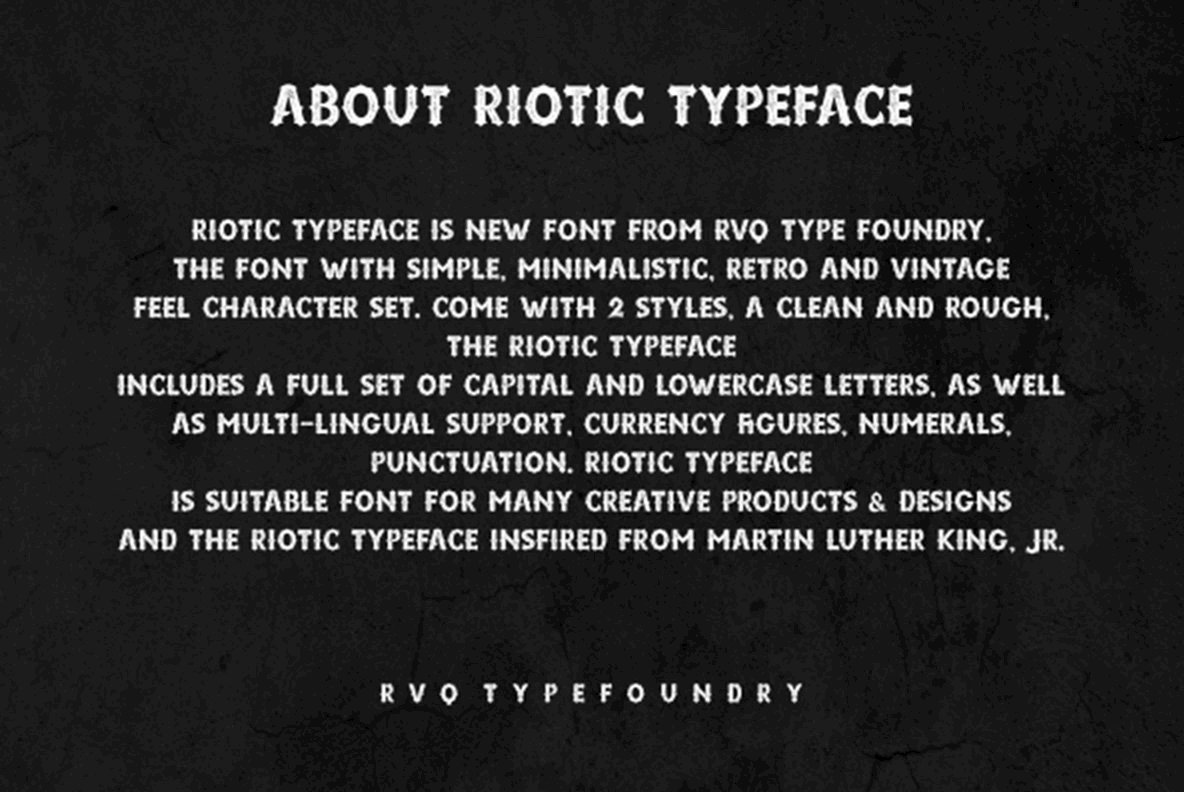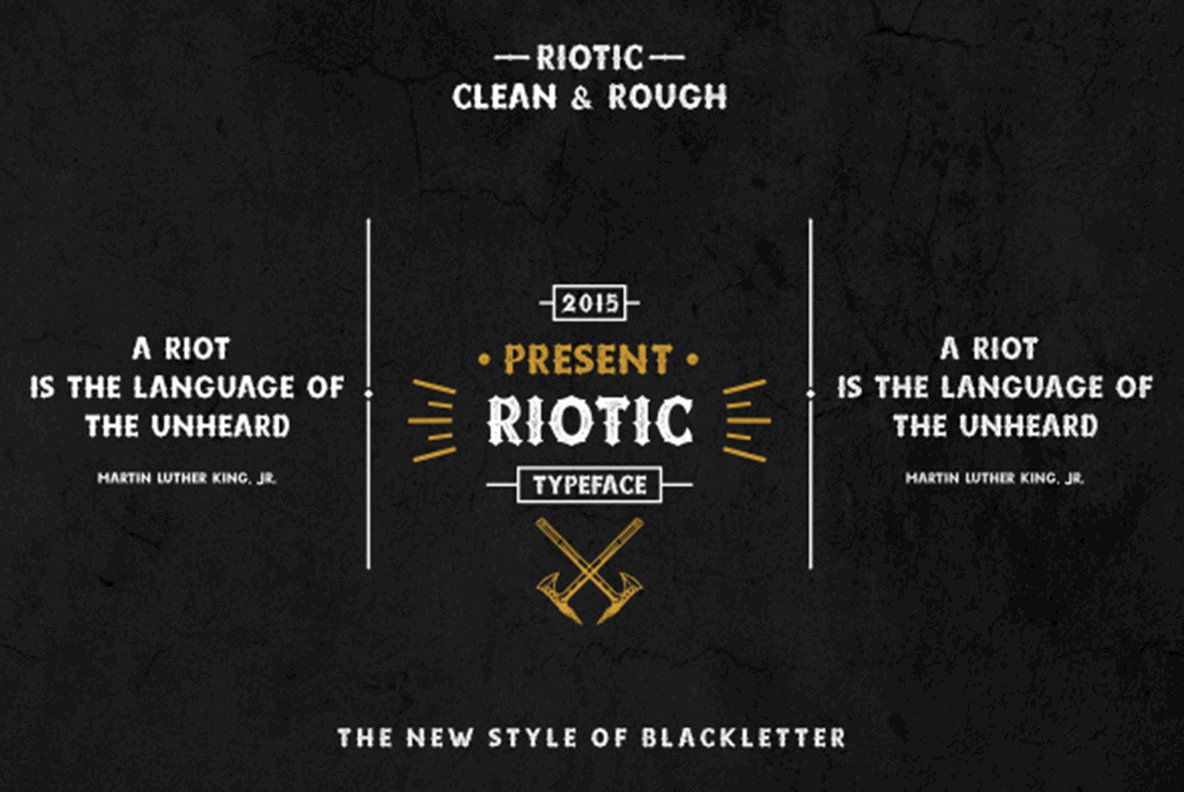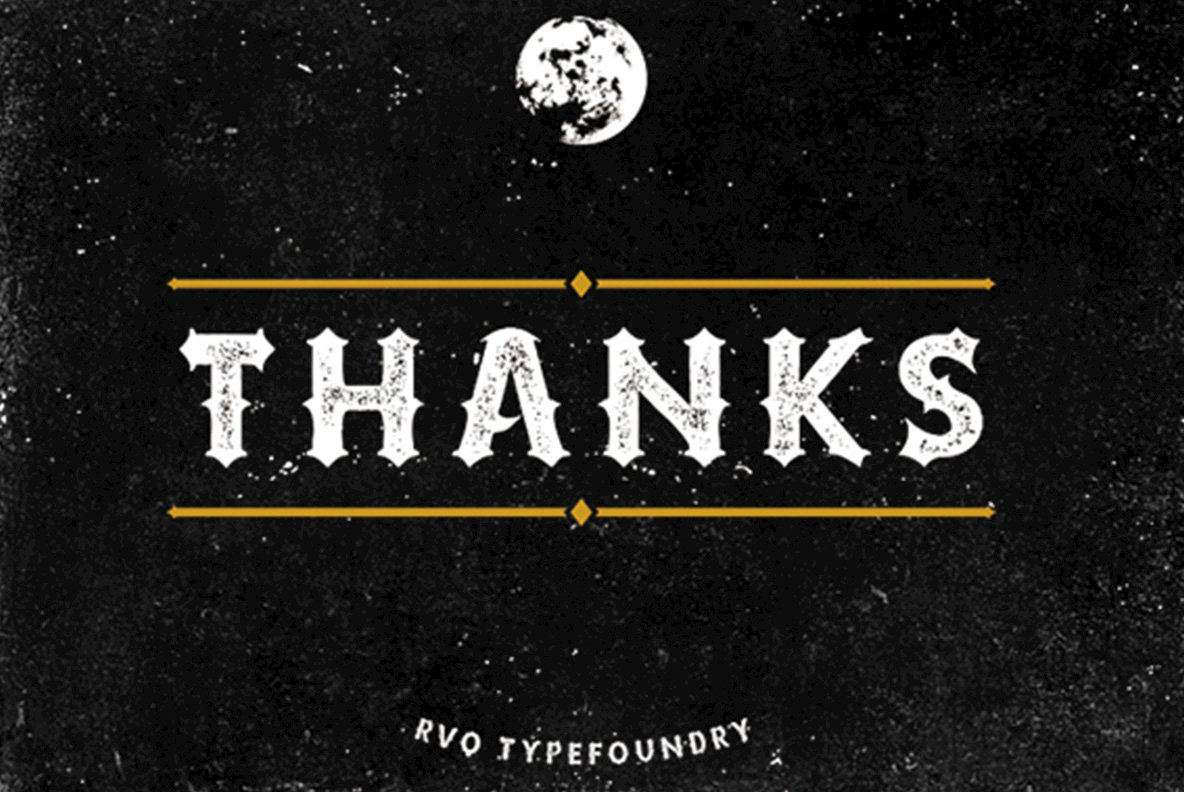
Riotic
Riotic is new font from RVQ type foundry. The font is minimalistic, with a retro and vintage feel character set. Riotic comes with 2 styles, a clean and rough. The typeface includes a full set of capital and lowercase letters, as well as multilingual support, currency figures, numerals,punctuation.